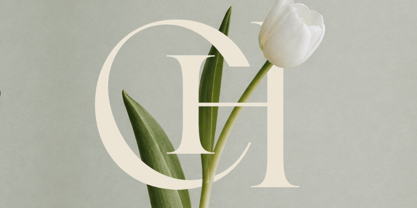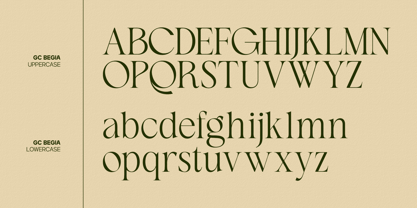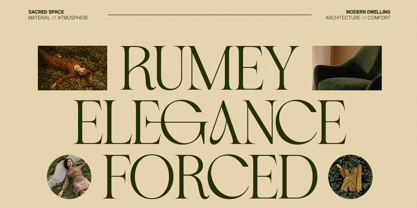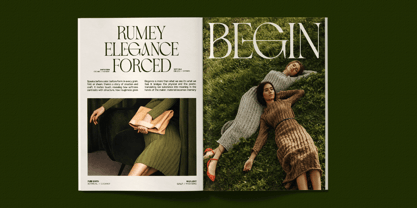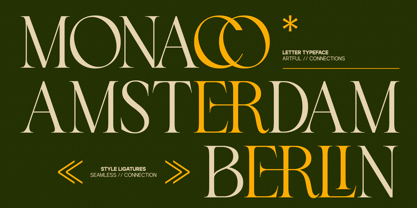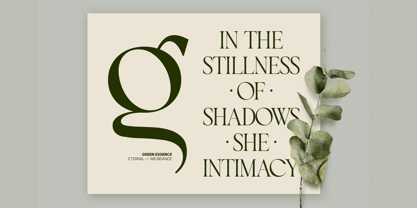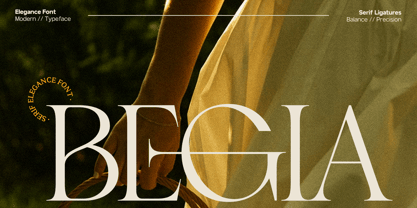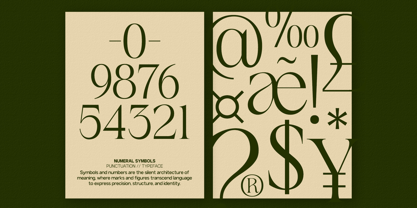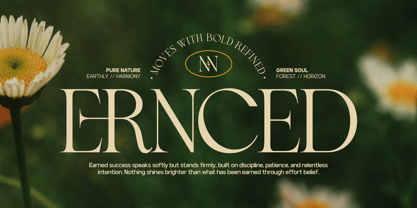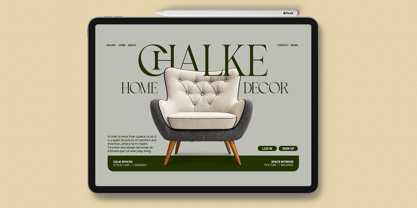
GC Begia
by Onyx Studio
The GC Begia Font Family was designed by Muhammad Hafiizh Solana and published by Onyx Studio. GC Begia contains 2 styles and family package options. More about this family
GC Begia – Modern Luxury Typeface is a refined typeface designed to express elegance, sophistication, and contemporary luxury. With graceful letterforms, balanced proportions, and carefully crafted details, it delivers a confident yet polished voice that stands out beautifully across both digital and print media. Blending modern design principles with a luxurious aesthetic, GC Begia is perfect for high-end branding, fashion editorials, beauty packaging, premium logos, and sophisticated visual identities. Its clean structure and elegant rhythm allow every word to feel refined while maintaining excellent readability. Thoughtfully designed to bring harmony and character to your typography, GC Begia adapts effortlessly to a wide range of creative projects—from bold headlines to elegant compositions. Features: - Uppercase & Lowercase - Numbers & Punctuation - Modern Luxury Construction - Multilingual Support (170+ Languages) Bring elegance, prestige, and modern sophistication to your design with GC Begia – Modern Luxury Typeface.
Designers: Muhammad Hafiizh Solana
Foundry: Onyx Studio